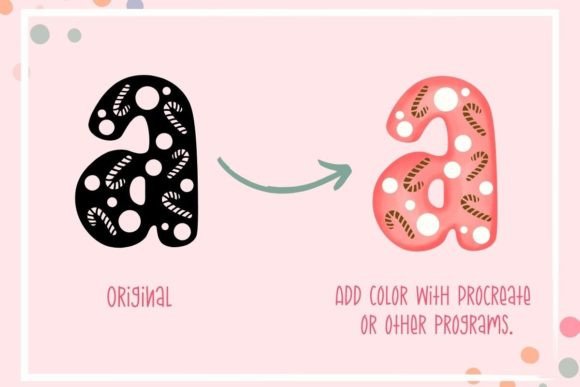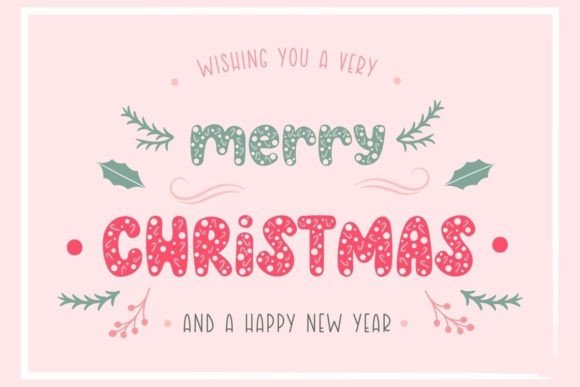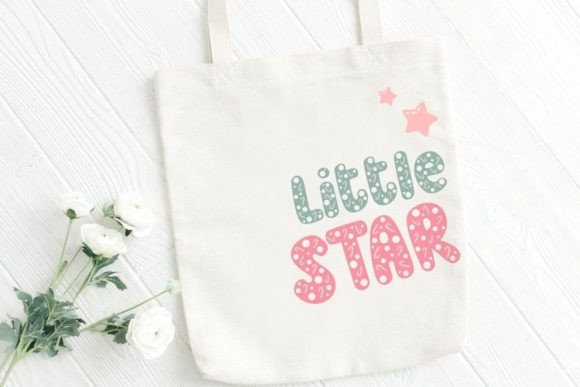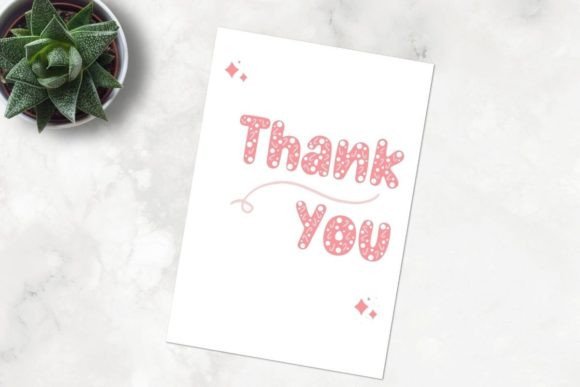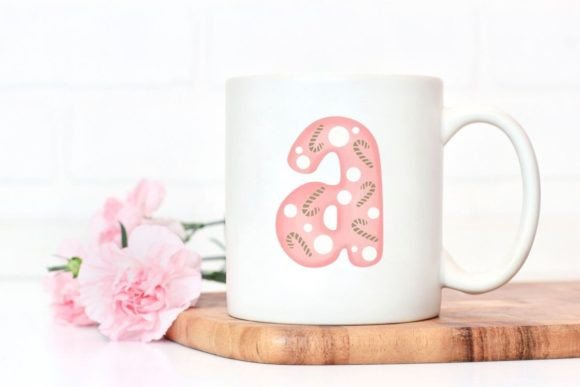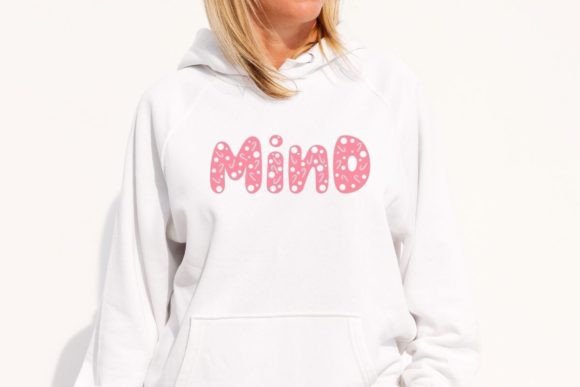
Adding a Sweet Touch to Your Designs
Have you ever stared at a blank page, struggling to find the perfect font to match your creative vision? You know, that moment when everything feels stagnant, and you just need a spark to ignite your imagination? For designers like you, the right font can be the difference between a good design and a great one.
Enter the Candy Font, a delightful combination of handwriting fonts and Christmas candy elements that adds a playful twist to your work. This charming font is perfect for making your designs stand out, and its versatility makes it ideal for a wide range of projects, from social media posts to banners and stationery.
Candy Font Key Features
- Font Family: Candy Font is a sans-serif font family designed to resemble hand-drawn candy.
- Unique Characteristics: Features rounded corners, smooth curves, and playful ligatures that evoke a sense of whimsy and fun.
- Font Style: Available in regular, bold, italic, and bold italic styles, providing flexibility for different design needs.
Candy Font Review
As a designer, I was initially drawn to Candy Font due to its playful and whimsical nature. The font’s ability to evoke a sense of nostalgia and sweetness is certainly a strength. ✨ The font’s ligatures and swashes add a touch of elegance, making it suitable for a wide range of applications, from branding to packaging design.
One of the standout features of Candy Font is its versatility. It can be used in both digital and print formats, making it a great choice for designers who need a font that can adapt to different mediums. ✨ Additionally, the font’s high-quality vector format makes it easy to scale and manipulate without losing any of its charm.
However, there are a few limitations to consider. ⚠️ The font may not be suitable for professional or corporate applications, as its playful nature may not be taken seriously. Additionally, some users may find the font’s bold and ornate style to be overwhelming or difficult to read in certain contexts.
Pros and Cons:
- ✨ Playful and nostalgic aesthetic
- ✨ Versatile and suitable for various applications
- ✨ High-quality vector format
- ⚠️ May not be suitable for professional or corporate applications
- ⚠️ Bold and ornate style may be overwhelming in certain contexts
Overall, Candy Font is a great choice for designers who want to add a touch of whimsy and personality to their projects. While it may have some limitations, its unique charm and versatility make it a valuable addition to any designer’s toolkit.
The Candy Font is ideal for:
- Birthday invitations and party decorations
- Wedding invitations and wedding decorations
- Food and dessert labels
- Children’s party decorations and invitations